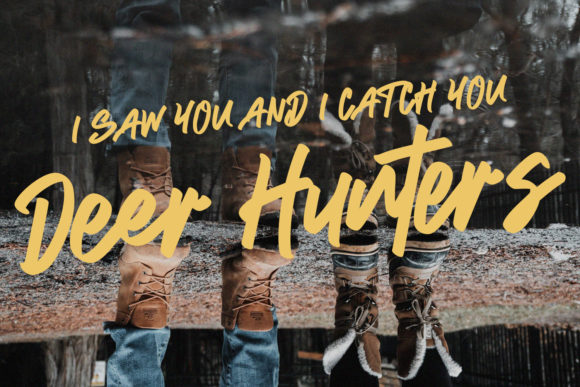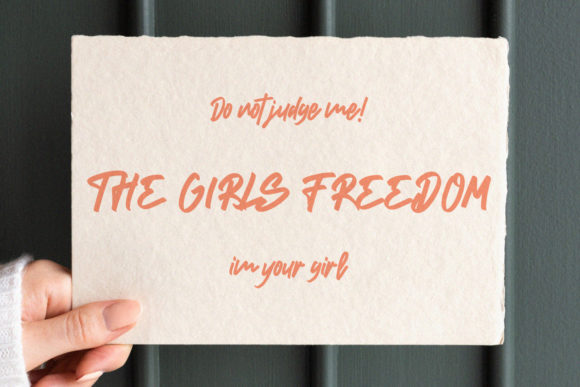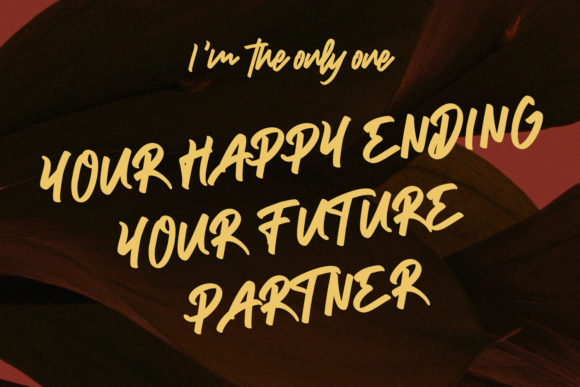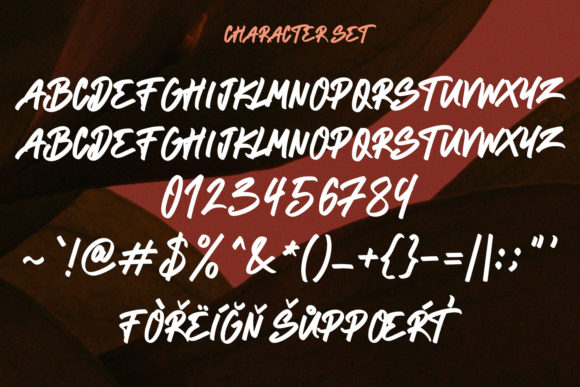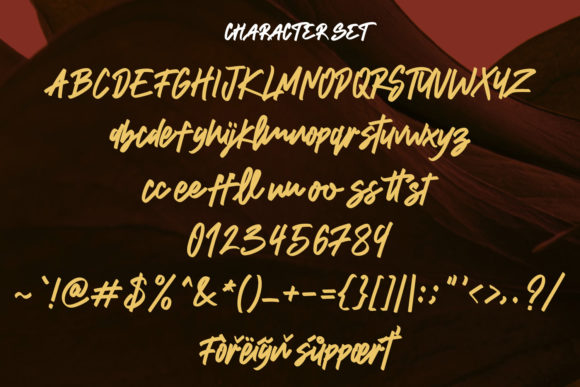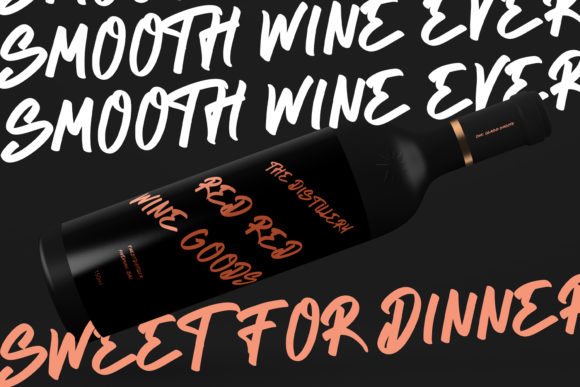
A Delightful Touch to Your Designs
Have you ever stumbled upon a font that immediately sparks your creativity and makes you want to bring your ideas to life? For many designers, that moment comes when they discover the perfect font to match their vision. For me, that moment was when I first laid eyes on the Affectives Font.
This beautiful, cursive script font has a casual yet delightful touch that makes it perfect for a wide range of applications. From logos and headings to t-shirts and signage, the Affectives Font is versatile and can be used to add a personal touch to any design project. What makes it truly valuable for designers is its ability to evoke emotions and create a connection with the audience.
Affectives Font Key Features
- Font Family: Affectives Font is a unique, high-quality font family designed for digital use, available in a range of weights and styles.
- Unique Characteristics: Affectives Font features a distinctive, hand-crafted design with subtle texture and imperfections, giving it a unique and human touch.
- Font Styles: The font family includes a range of styles, including regular, bold, italic, and bold italic, allowing for a high degree of flexibility and customization.
Affective Font Review
When I first laid eyes on the Affective Font, I was immediately drawn to its unique and playful style ✨. The font’s emotive and expressive qualities make it perfect for designers looking to add a touch of personality to their projects. The font’s various weights and styles offer a high level of customization, allowing designers to tailor the font to their specific needs.
One of the standout features of the Affective Font is its legibility ✨. Despite its playful and expressive nature, the font remains clear and easy to read, even at smaller font sizes. This makes it an excellent choice for designers who need a font that can hold its own in a variety of contexts.
Overall, the Affective Font is a solid choice for designers looking for a unique and expressive font ✨. While it may have some limitations, its strengths far outweigh its weaknesses, making it a worthwhile addition to any designer’s toolkit.
3. Take advantage of Affectives Font’s unique features, such as its expressive and emotive qualities, to convey your message effectively.
Affectives Font is ideal for:
1. Emotional branding: Use Affectives Font to create a brand identity that evokes emotions and connects with your target audience.
2. Creative writing: Affectives Font is perfect for writing that requires a touch of personality and flair.
3. Social media graphics: Use Affectives Font to create eye-catching social media graphics that grab attention and engage your audience.
Q: Can I customize Affectives Font to fit my specific design needs?
Yes, Affectives Font is a highly customizable font family. You can adjust the weight, width, and slant of the font using the variable font controls in your design software or browser. You can also use the font’s built-in features such as ligatures and kerning to fine-tune the typography in your design projects.